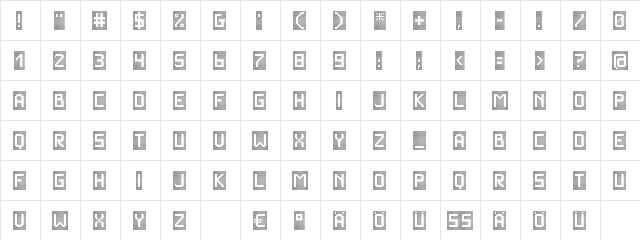
VegasTWENTY Regular
Design Context for VegasTWENTY Typeface
VegasTWENTY offers clean, dependable letterforms without strong stylistic allegiance, making it a practical choice for designers who need flexibility.
Pro Tip: Use VegasTWENTY in both headline and body roles to test its range before committing to a single application.